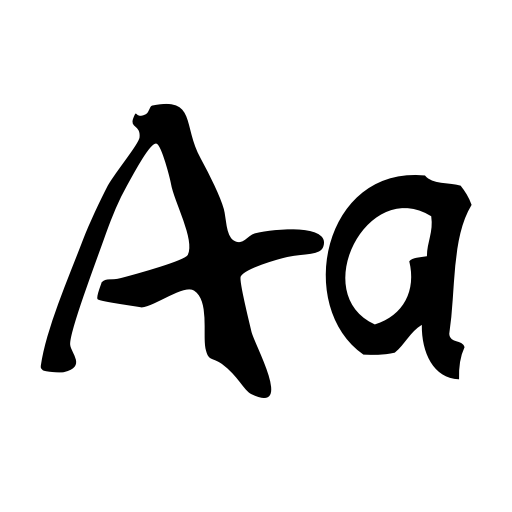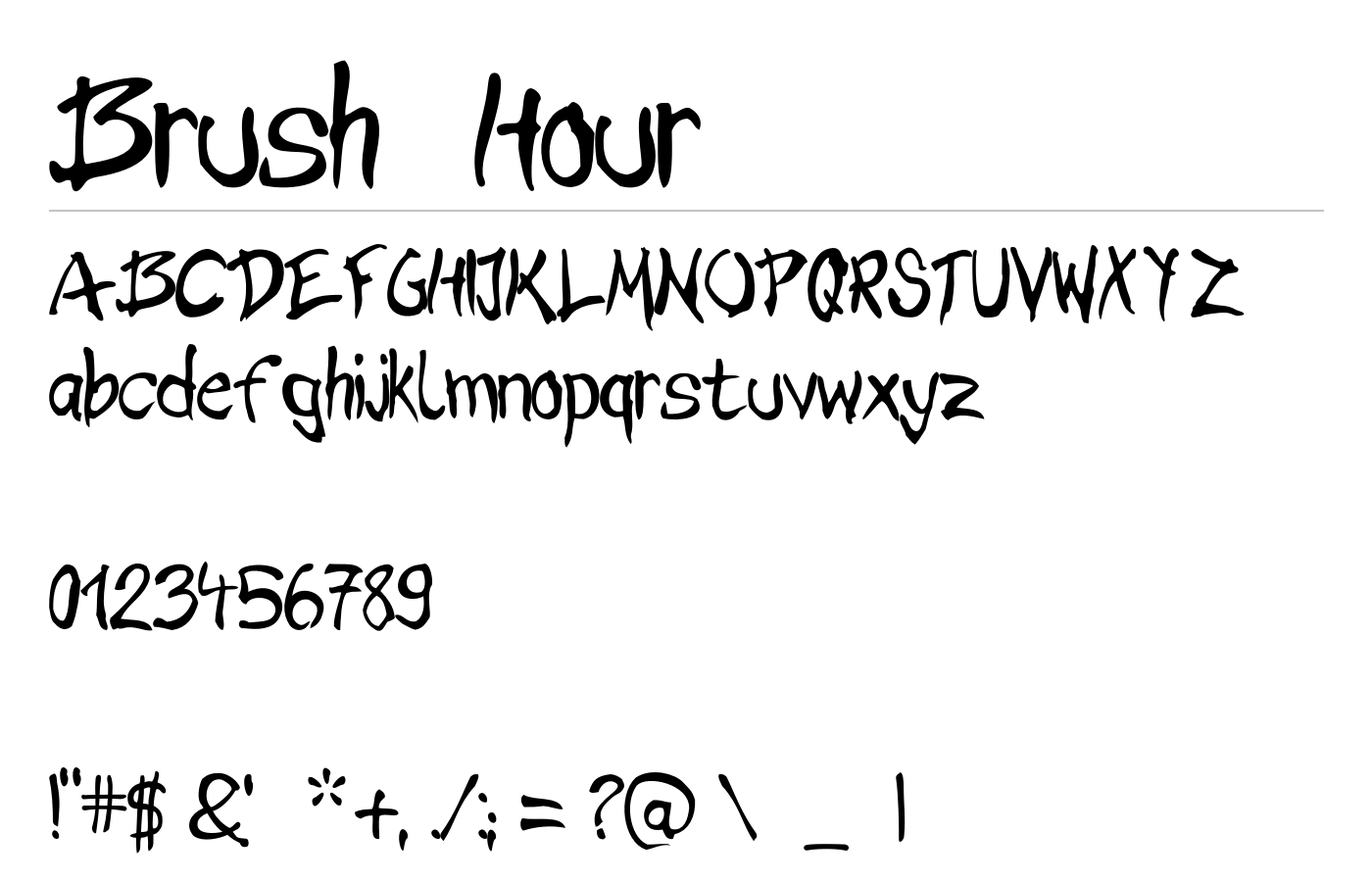
Brush Hour is an informal, hand-drawn script font that mimics natural brush strokes with its playful and slightly irregular letterforms. Its moderate weight, lively texture, and casual style make it perfect for creative projects, invitations, or branding that aims for a friendly, approachable, and artistic vibe. This font works best in headlines, logos, and designs where a personal, handcrafted feel is desired.
Brush Hour Font
About Brush Hour Font
| Font family | Brush Hour Font |
| Designer | Guido Holz |